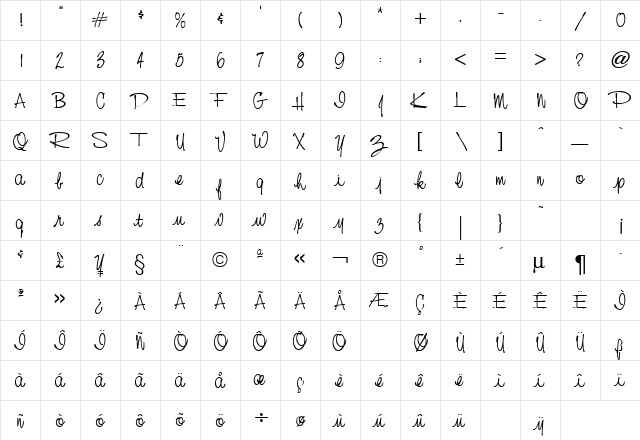
Nevison Regular
Design Context for Nevison Typeface
Nevison is a composed and adaptable typeface that performs quietly and consistently across a wide range of design contexts.